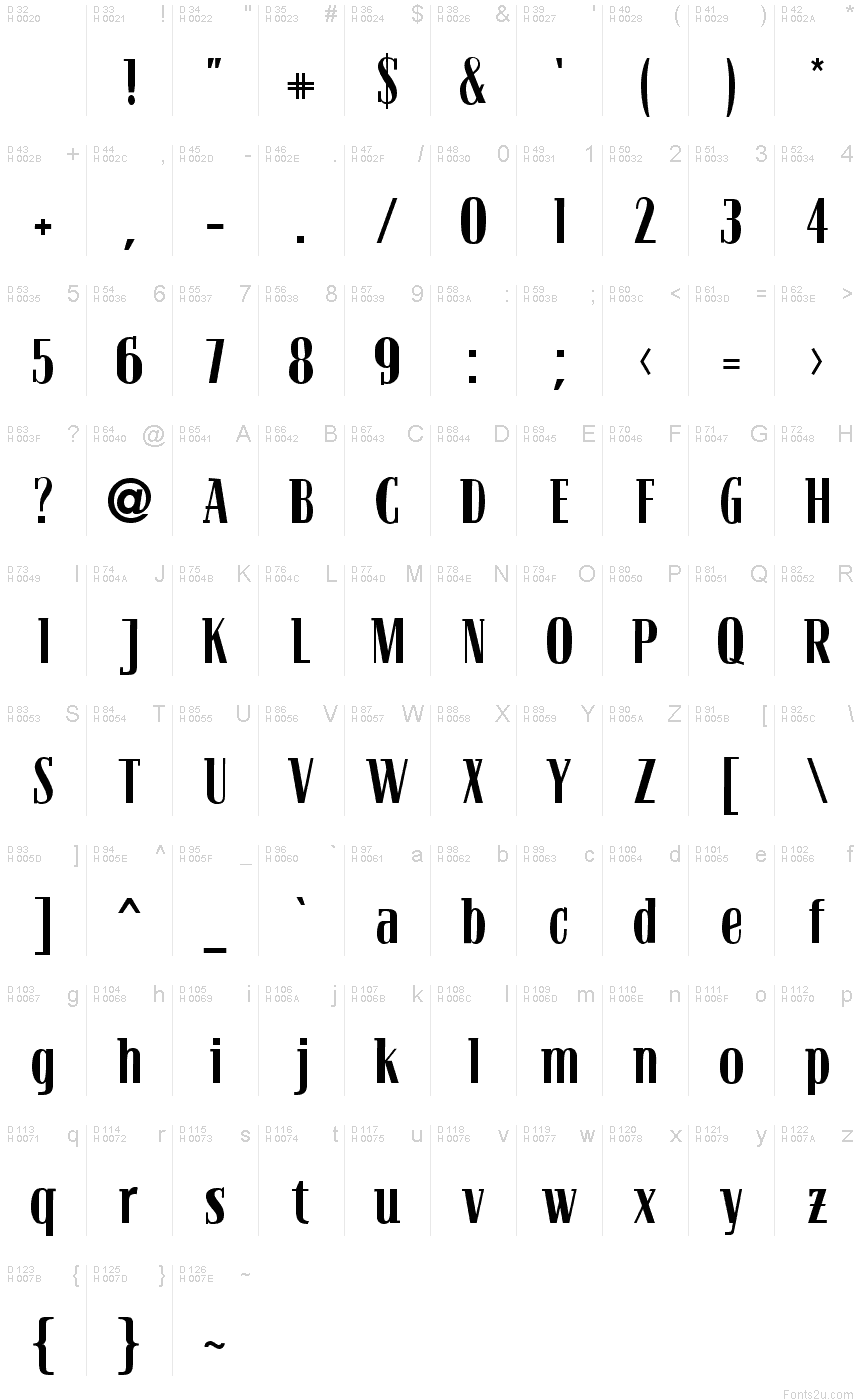
Bloc by J. Geiger of geigerartwork.de is a free high-contrast display serif with an exceptionally tall, compressed silhouette and very tightly fitted letterforms. Broad vertical strokes meet hairline curves and sharp, restrained serifs, so the letters have severe editorial elegance and blunt poster-like force.
It makes a stark centerpiece for fashion campaigns. The narrow proportions also suit fragrance packaging, magazine covers, and nightclub posters, where dramatic lettering must occupy a compact horizontal area. Beside tightly cropped portrait photography or hard-edged geometric patterns, its alternating dark slabs and fine lines echo the same visual play of light and shadow, mass and delicacy.